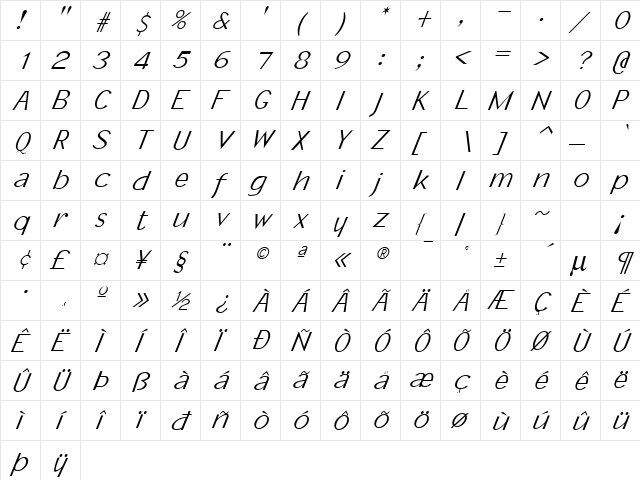
Memo-Italic Normal
Design Context for Memo-Italic Typeface
Memo-Italic takes a measured approach to typography — its balanced proportions and neutral character make it a reliable workhorse for both digital and print work. The dynamic lean of this cut emphasises speed and emphasis in any layout.
Pro Tip: Try Memo-Italic for annotation and caption copy alongside an upright companion — the contrast in angle creates a dynamic but ordered typographic system.